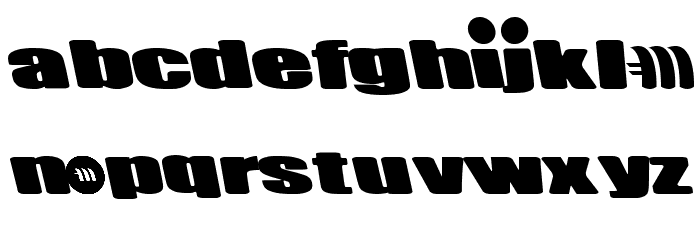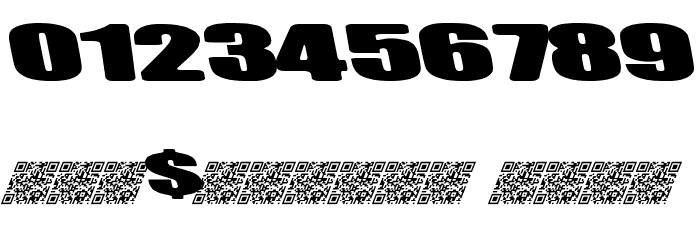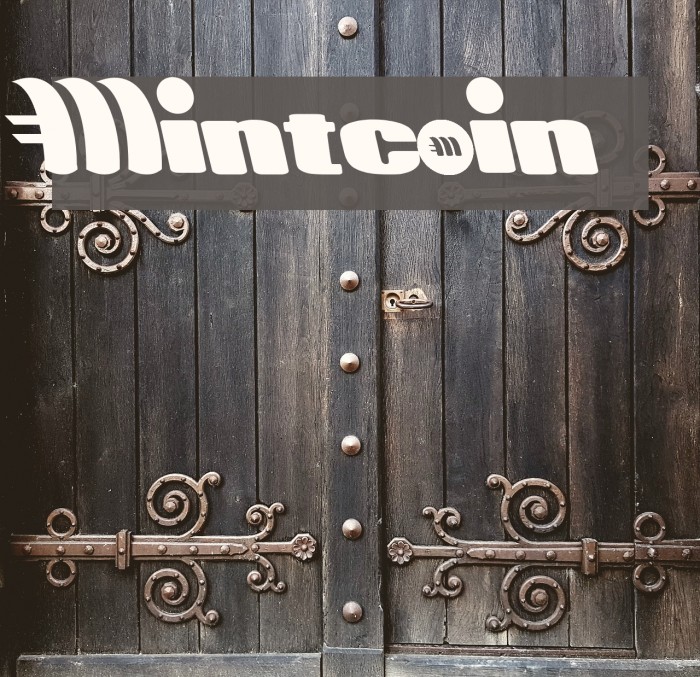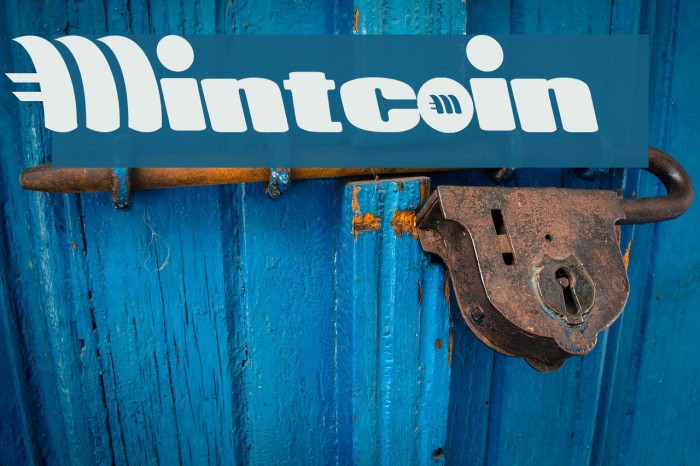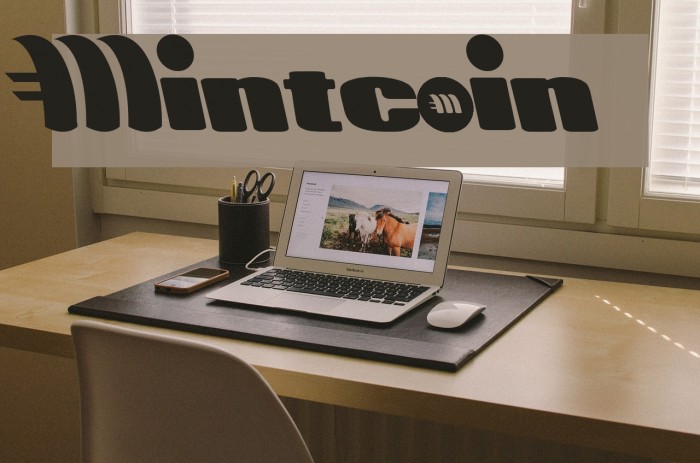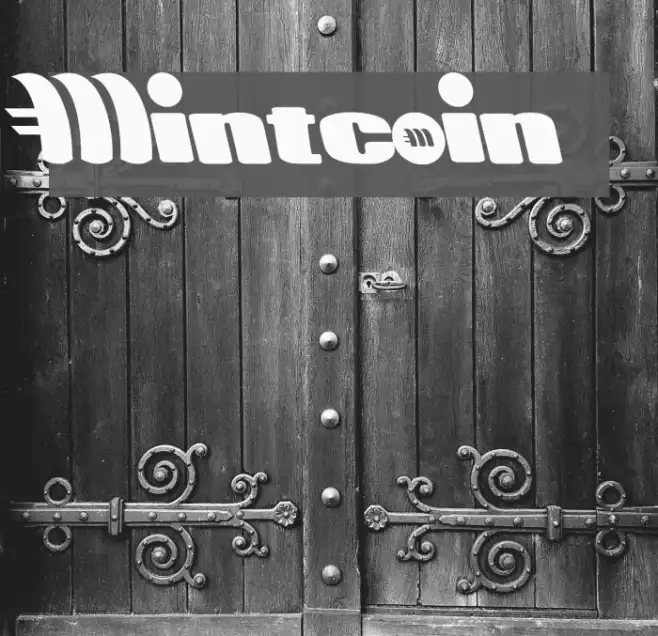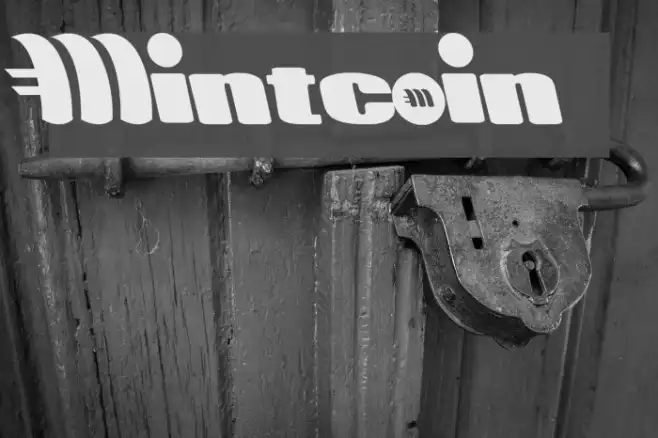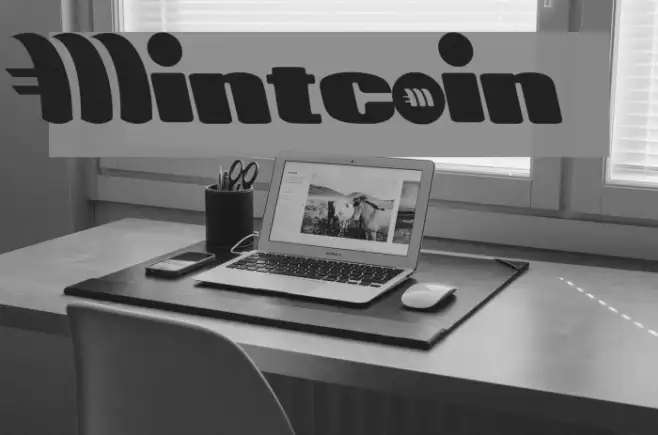
Mintcoin Font
This font features a bold and impactful design with a strong presence. The characters are heavily weighted, creating a sense of solidity and strength. The uppercase and lowercase letters maintain a consistent thickness, contributing to a uniform appearance. The rounded edges soften the overall look, adding a touch of approachability. The numbers are equally bold, ensuring they stand out clearly. Special characters are designed with the same boldness, making them easily recognizable. This font's style is suitable for projects that require a strong visual impact.
A bold, impactful font with rounded edges and uniform thickness.